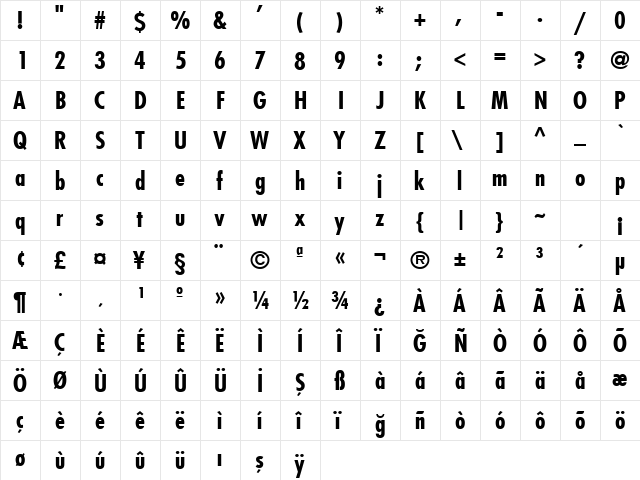
TR Fujiyama Bold
Design Context for TR Fujiyama Typeface
TR Fujiyama offers clean, dependable letterforms without strong stylistic allegiance, making it a practical choice for designers who need flexibility. The heavy weight commands attention and anchors typographic hierarchies.